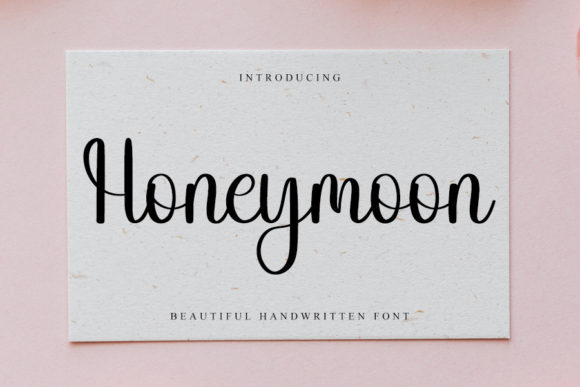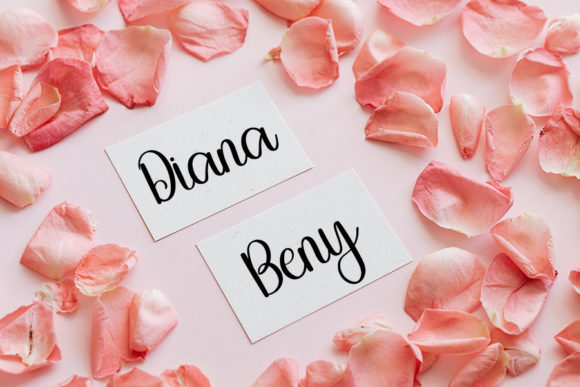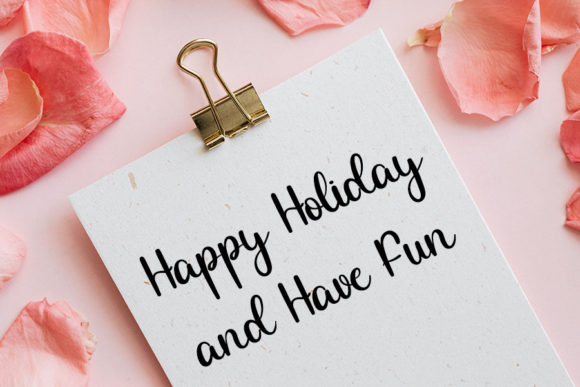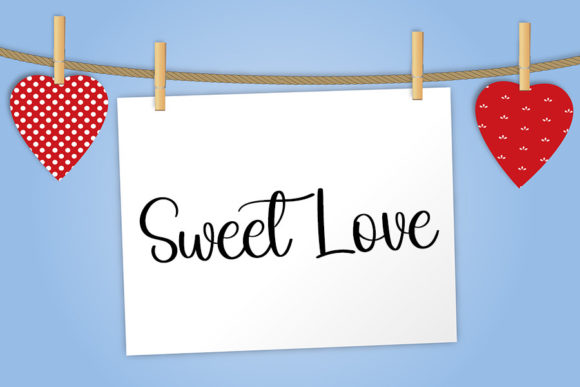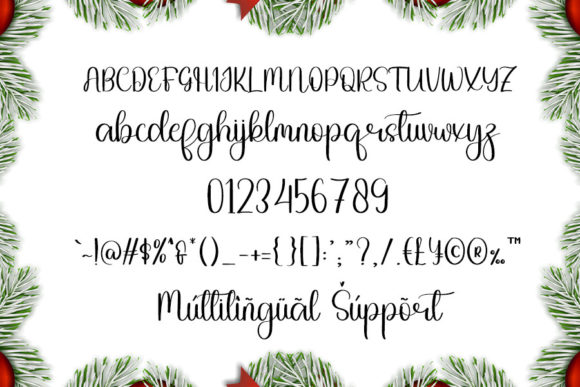
About Honeymoon Font
Honeymoon is a stylish handwritten font with a contemporary atmosphere and impeccable form, inspired by a timeless classic calligraphy. Not too thin and not too thick, balanced and varied, this font was designed to enhance the beauty of your projects. Fall in love with it and bring your designs to the highest level!